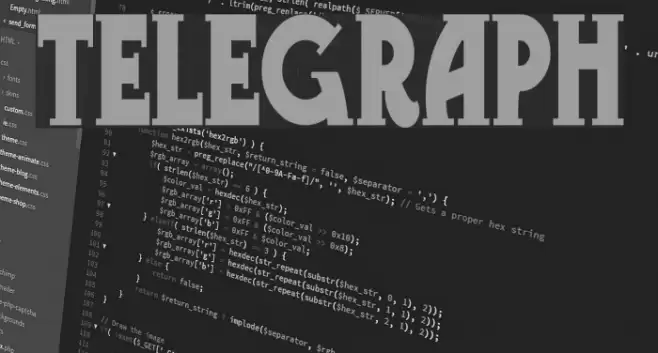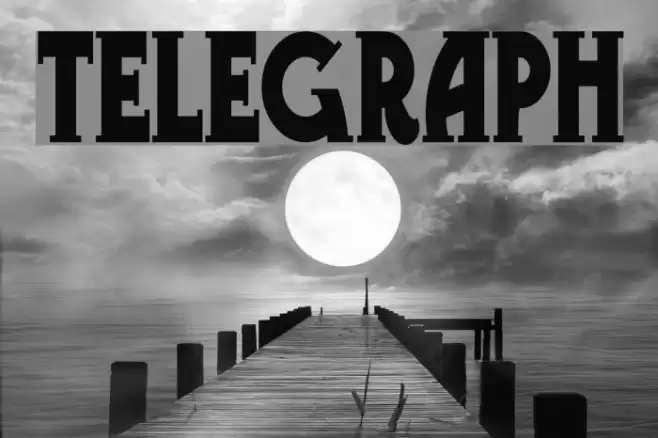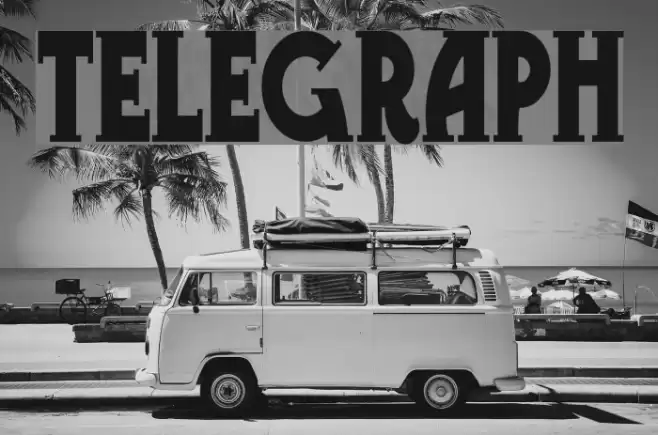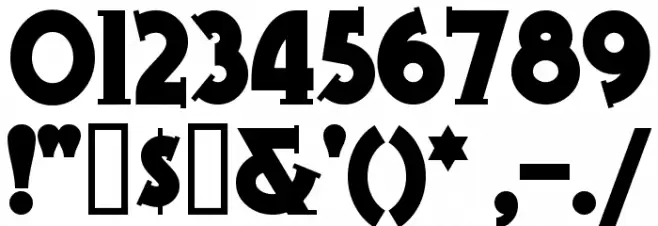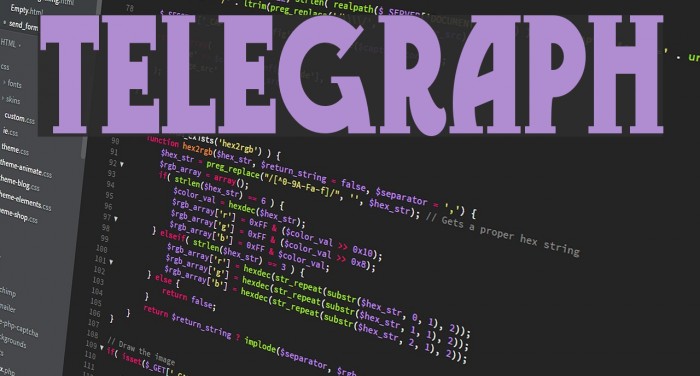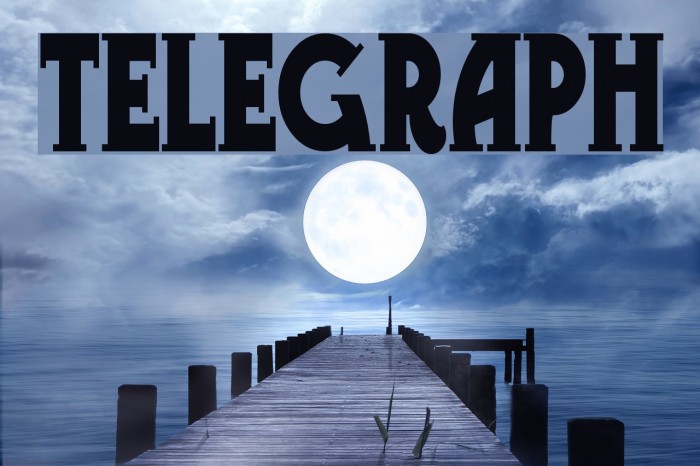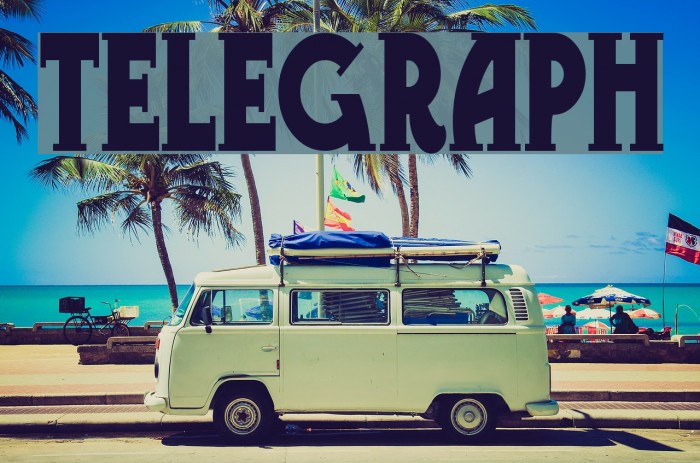
Telegraph Font
Telegraph Description
This font features a bold and dramatic style with strong, thick strokes that create a commanding presence. The characters are designed with a high contrast between thick and thin lines, giving them a dynamic and eye-catching appearance. The serifs are prominent and angular, adding a touch of elegance and sophistication. The overall design is reminiscent of vintage typefaces, yet it maintains a modern flair. The uppercase letters are particularly striking, with their bold forms and unique detailing. The numbers and special characters are equally robust, ensuring consistency across all text elements.
A bold, high-contrast serif font with a vintage yet modern appeal from Uncategorized fonts.
- Overall Style: Vintage